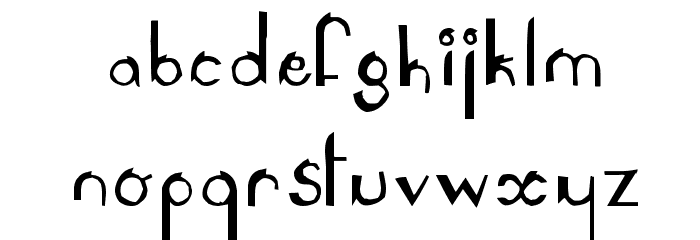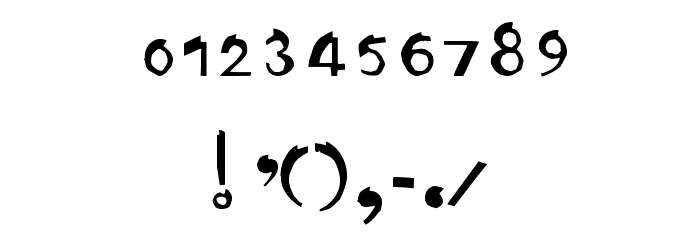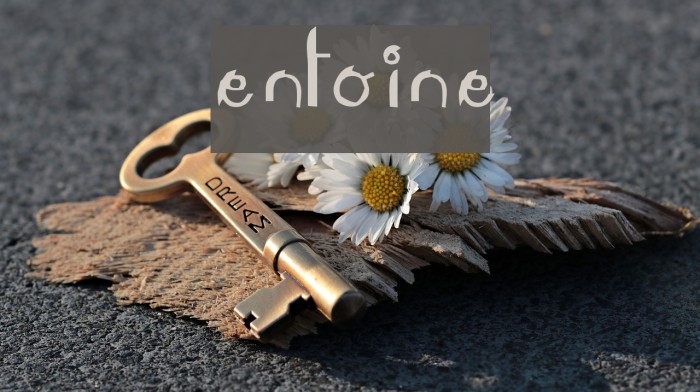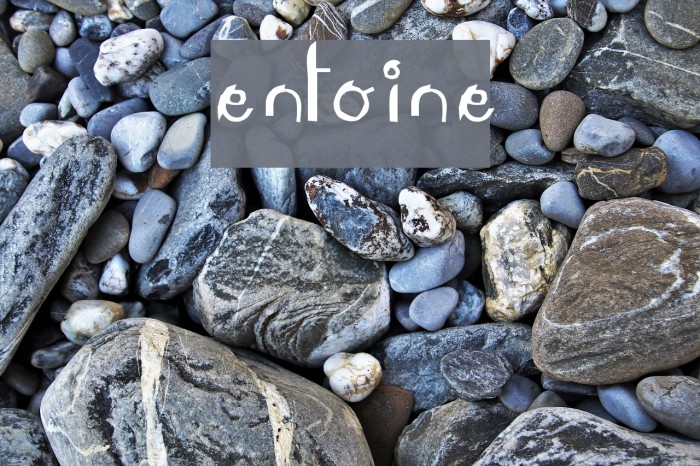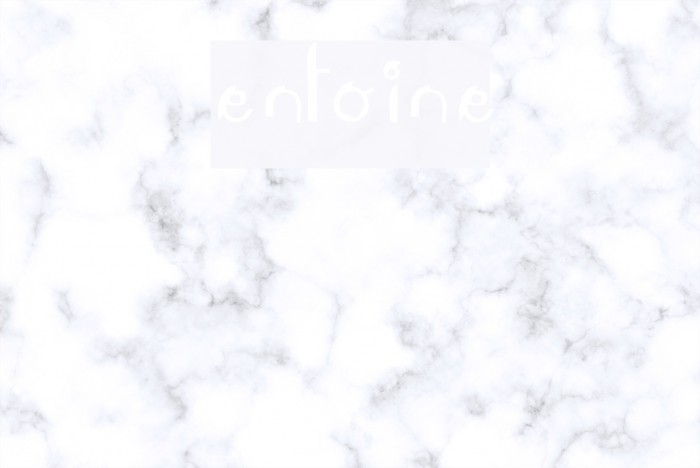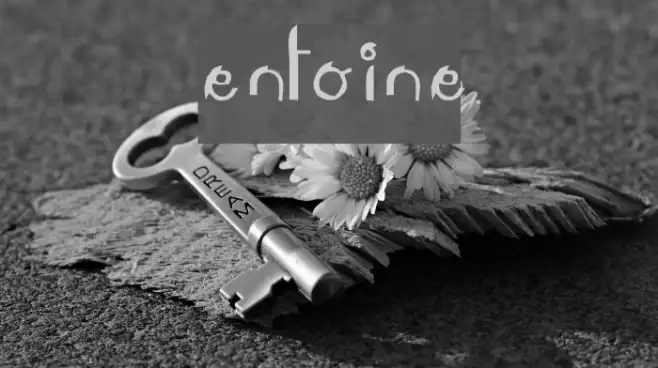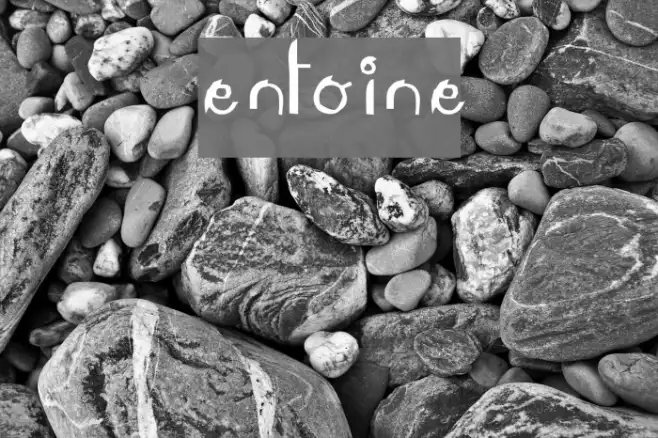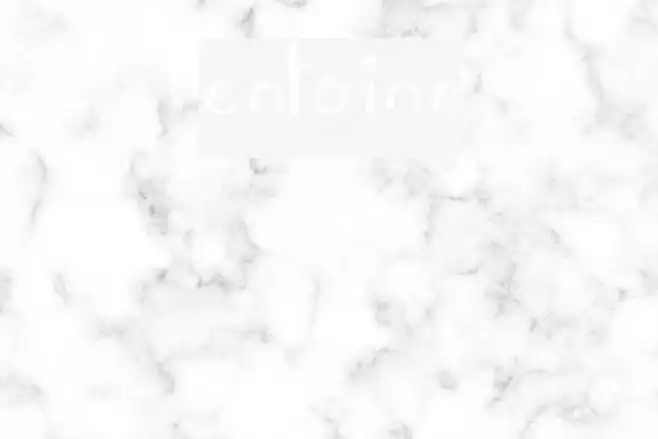
LeAntoine Font
This font features a unique blend of modern and vintage elements, characterized by its distinct geometric shapes and playful curves. The uppercase letters are enclosed in rectangular frames, adding a decorative touch that makes them stand out. The lowercase letters have a whimsical quality, with varying stroke thicknesses that create a dynamic visual rhythm. Numbers and special characters maintain the same playful style, ensuring consistency across all elements. The font's overall appearance is both artistic and functional, making it suitable for a variety of creative applications.
A decorative font with geometric shapes and playful curves, blending modern and vintage styles.